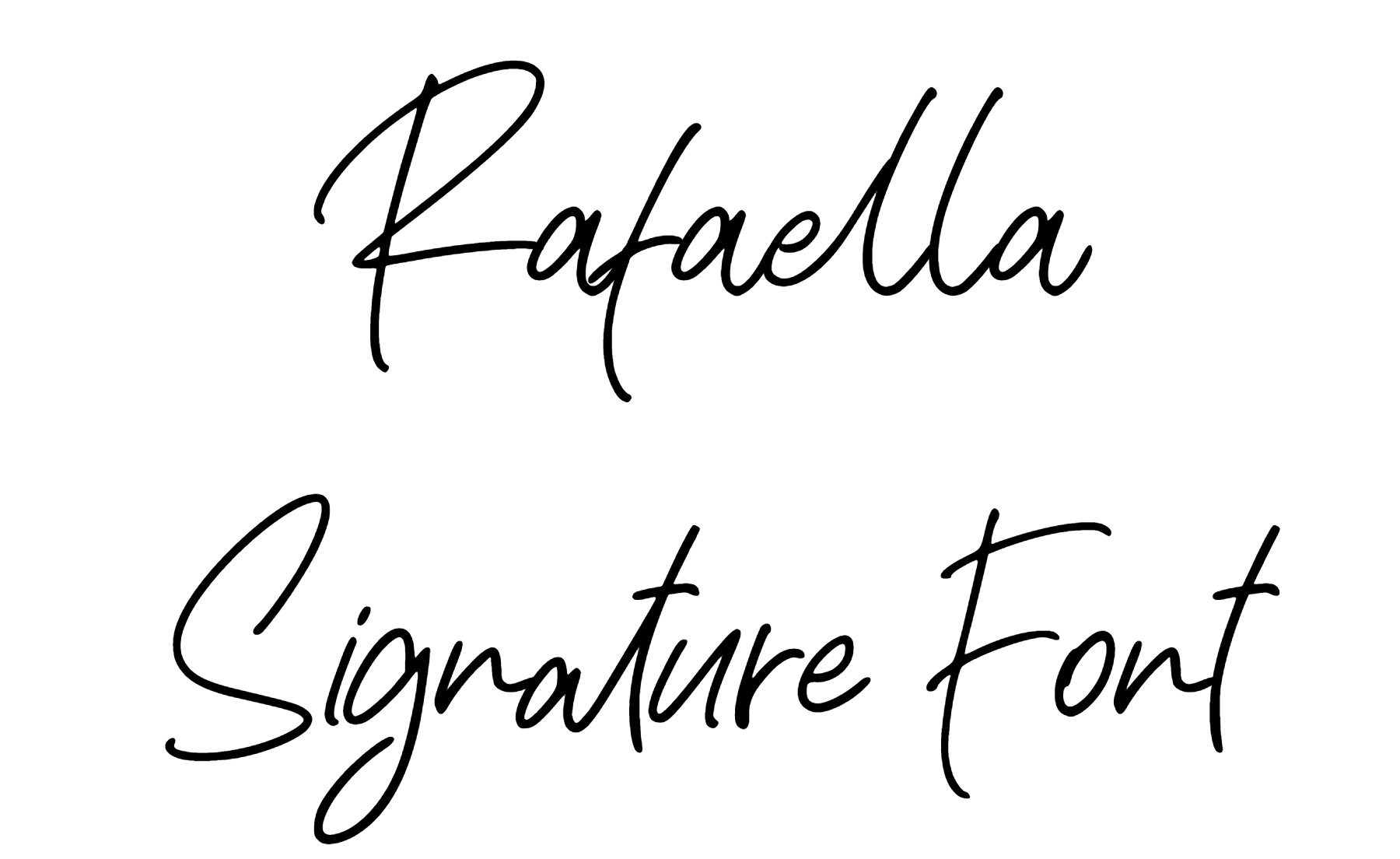
Rafaella Signature
Rafaella Signature is a handwritten font designed by Heru Utama Putra and published by Letterena Studios (2021). It looks like someone actually wrote it by hand: relaxed, friendly and a little imperfect in a good way. You get two styles in one free ZIP, and the preview above lets you test each one before you download.
Rafaella Signature Font Details
What You Can Type With Rafaella Signature
With complete upper and lowercase letters and all ten digits, Rafaella Signature is ready for real wording, not just a single headline. Common punctuation such as &, !, ? and @ is included as well. It also has the accented letters you need for Spanish, French, German, Portuguese and Italian.
How to Use the Alternate Letters in Rafaella Signature
Where Rafaella Signature Works Best
Designers usually reach for fonts like Rafaella Signature when they're making greeting cards, journal pages and friendly social posts. Its lowercase letters are small compared to the capitals, so set it a size or two bigger than usual. Set it a bit larger than you would a normal text font. Handwriting styles lose their charm once they get too small to read comfortably. Because the family has more than one style, you can mix them in a single design for headings, subheadings and highlights.